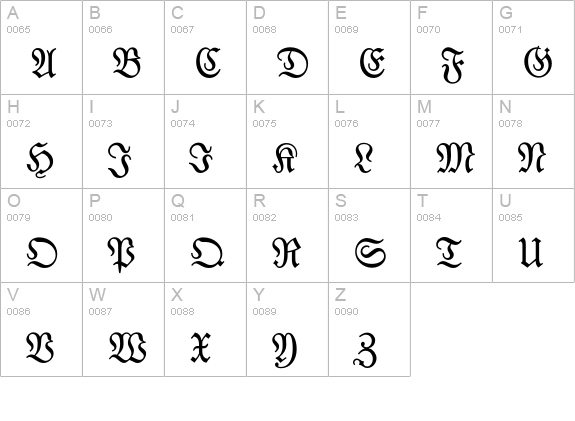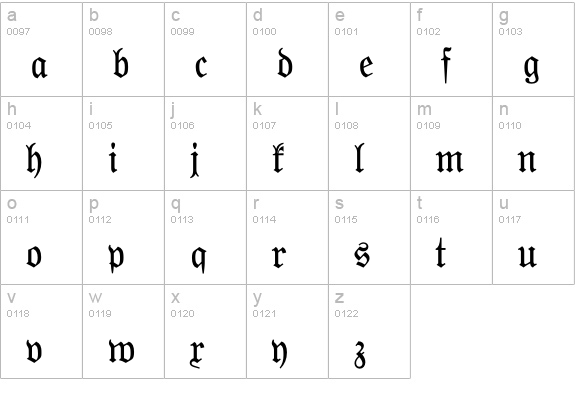
SpecialAlphabetsP02 Font Details
SpecialAlphabetsP02 font is a unique and captivating typeface that is sure to make your designs stand out. With its intricate and ornate letterforms, this font adds a touch of elegance and sophistication to any project. The SpecialAlphabetsP02 font is perfect for creating eye-catching logos, stylish headlines, and stunning invitations. Its exquisite details and graceful curves make it a versatile choice for both digital and print designs. This font comes in a variety of weights, allowing you to choose the perfect style for your project. Whether you're going for a bold and impactful look or a more delicate and refined aesthetic, SpecialAlphabetsP02 has got you covered. One of the best things about SpecialAlphabetsP02 font is that it is free to download. Yes, you read that right - this incredible font is available for you to use without any cost. Simply head over to FontsMarket.com and grab your copy today. So why wait? Download SpecialAlphabetsP02 font now and let your creativity soar. Whether you're designing a logo, creating a poster, or crafting a personalized invitation, this font is sure to make a lasting impression. Don't miss out on this amazing opportunity to enhance your designs with this stunning and freely available font.